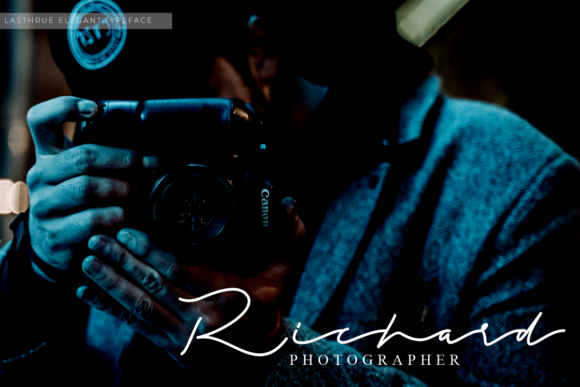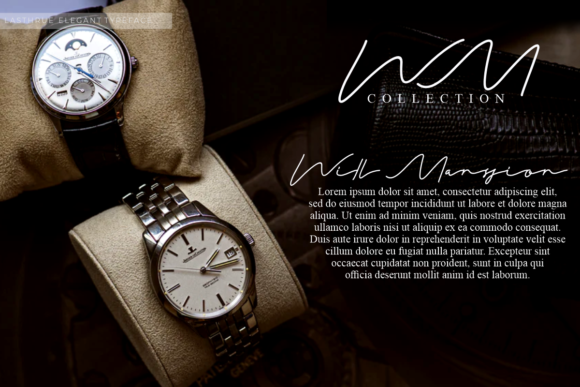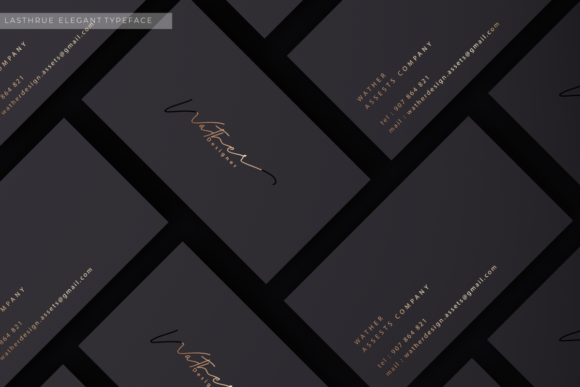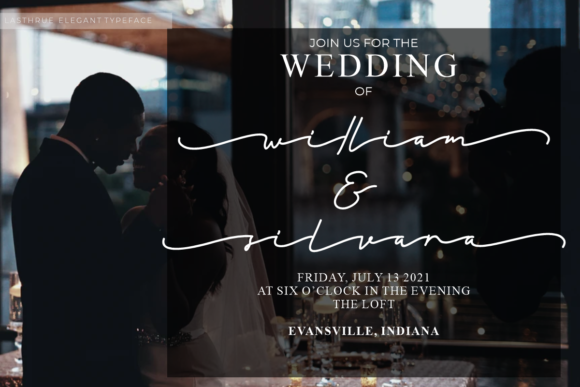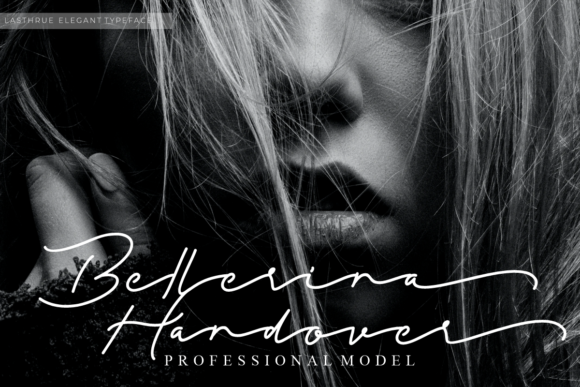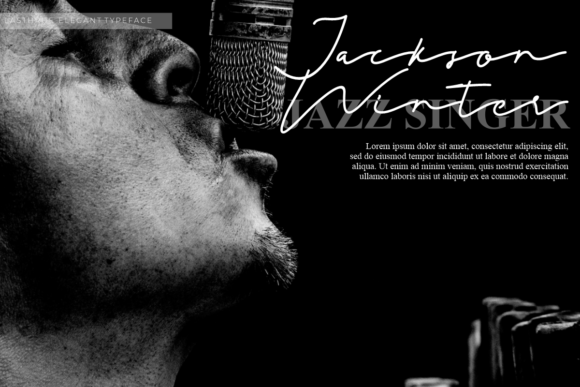
Introduction to Lasthrue Font
Have you ever found yourself in the midst of a creative project, searching for the perfect font to elevate your design to the next level? You’re not alone. As designers, we’re constantly on the lookout for that special something that sets our work apart from the rest. And, let me tell you, the Lasthrue Font is just that – a fashionable script font that exudes elegance and sophistication.
With its delicate yet balanced look, Lasthrue Font is the perfect addition to any creative project. Whether you’re working on a branding campaign, a wedding invitation, or a social media graphic, this high-quality font is sure to make a lasting impression. And, with its transparent background, you can easily layer it over any image or design element to create a truly unique look.
Key Features of Lasthrue Font
- High-quality, free font designed for creative projects, perfect for use on transparent backgrounds.
- Comes in a single font size, making it ideal for scalable designs without worrying about size limitations.
- Designed with a high-resolution (300 DPI) for use in print and digital applications, ensuring crisp and clear typography.
- Unique, hand-drawn style that adds a personal touch to any creative project, from branding to editorial design.
- Perfect for use in various creative projects, including but not limited to, logo design, typography-based art, and more.
Honest Review: Lasthrue Font
I recently stumbled upon the Lasthrue Font and I must say, it’s been a great addition to my design resources. As a designer, I’m always on the lookout for high-quality fonts that can elevate my creative projects. The Lasthrue Font definitely delivers.
- ✨ The font’s sleek and modern design makes it perfect for contemporary creative projects.
- ✨ The transparent background option is a great feature for designers who want to add an extra layer of sophistication to their designs.
- ⚠️ The font may not be suitable for projects that require a more traditional or classic look.
- ⚠️ Some users may experience issues with font rendering on certain devices or browsers.
Overall, I’m impressed with the Lasthrue Font. Its modern design and high-quality features make it a great resource for designers. While it may not be perfect, it’s definitely worth considering for your next creative project.
The Lasthrue Font is ideal for creative projects, such as designing logos, business cards, or social media graphics. It’s also great for creating presentations, documents, or posters with a transparent background. The high-quality design of the Lasthrue Font makes it a popular choice among designers.
To get the most out of the Lasthrue Font, use it in conjunction with other design elements, such as images or shapes. Experiment with different font sizes, colors, and styles to create unique and eye-catching designs. The Lasthrue Font is a versatile design resource that’s perfect for creative projects of all kinds.
Can I use the Lasthrue Font with a transparent background?
Yes, the Lasthrue Font supports transparent backgrounds, making it perfect for creating stunning designs with a see-through effect. This feature allows you to add depth and visual interest to your project, making it stand out from the crowd.